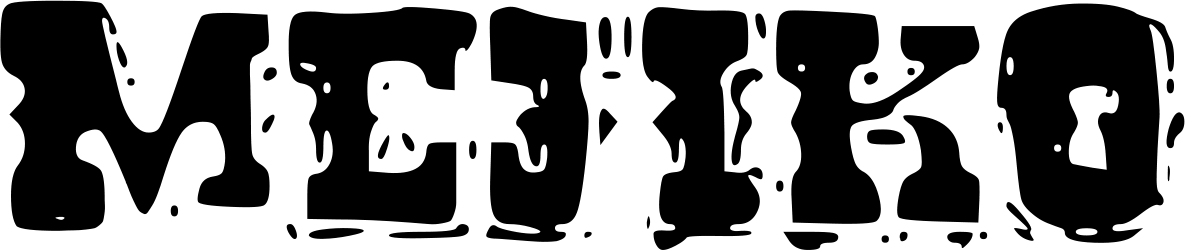
Mejiko Font
Mejiko font can be considered one of the cutest fonts. The reason is the fantasy design of the characters that attract any audience of any age. This Western font does not support numbers but instead has uppercase and low…
Mejiko font can be considered one of the cutest fonts. The reason is the fantasy design of the characters that attract any audience of any age. This Western font does not support numbers but instead has uppercase and lowercase characters that make your food plan colorful and cheerful.
Use different shapes such as spicy food, and wild Western clothes in your design to make it look amazing in your menu design.